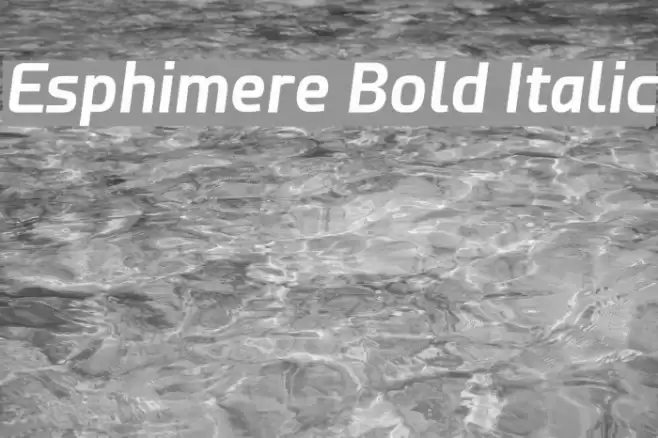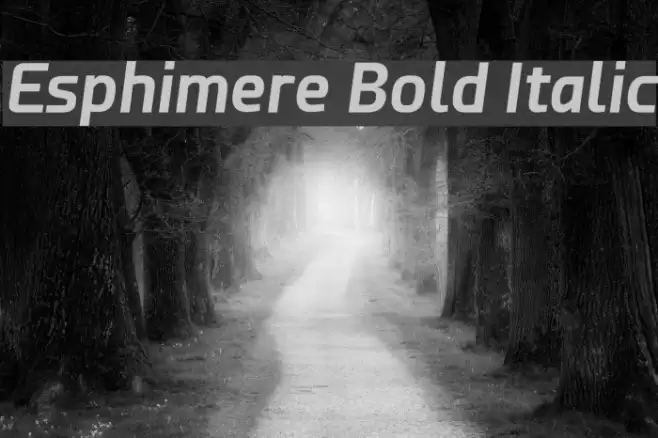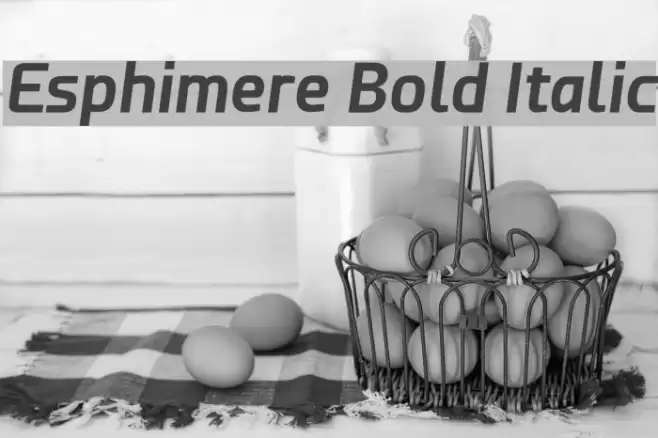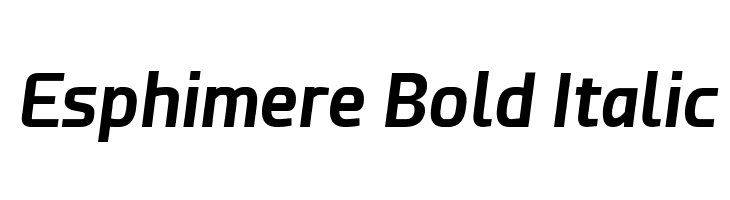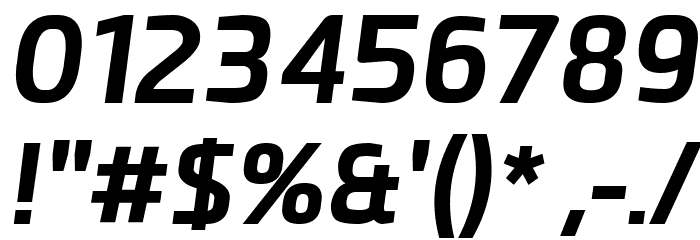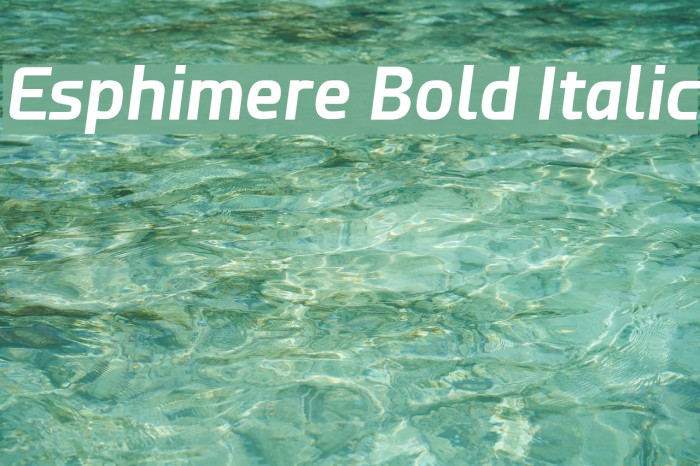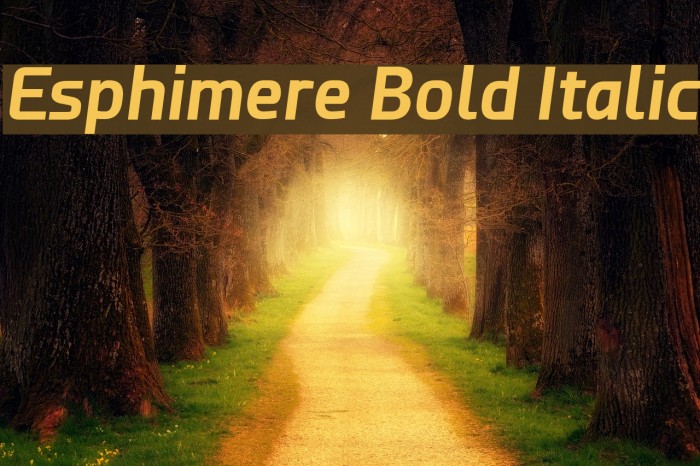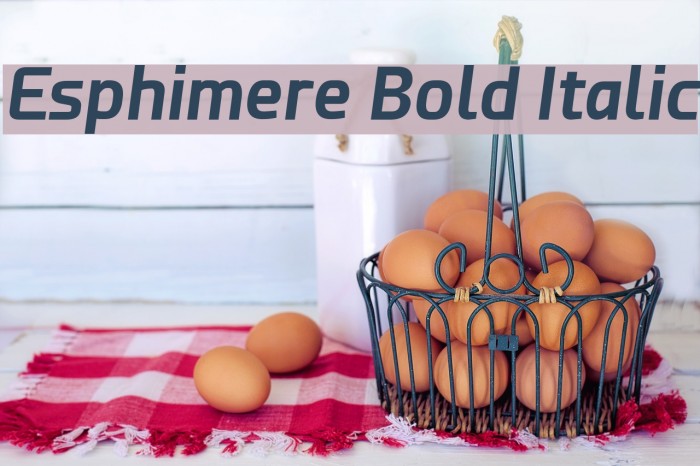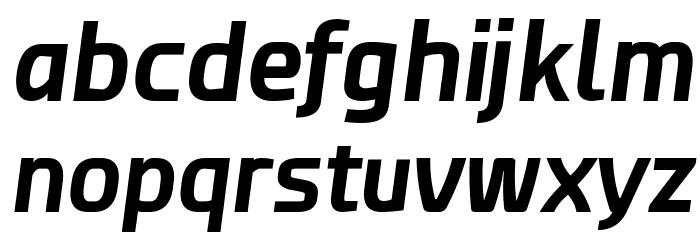
Esphimere Bold Italic
This font exhibits a modern and sleek design with a bold and italicized style. The characters are slightly slanted, giving a dynamic and forward-moving appearance. The strokes are consistent in thickness, providing a uniform look across all characters. The uppercase and lowercase letters are well-proportioned, ensuring readability and balance. The numerals are clear and distinct, matching the overall style of the alphabet. Special characters are included, maintaining the same bold and italic characteristics, making this font versatile for various uses.
A modern, bold italic font with consistent stroke thickness and dynamic slant.
- Proposed Projects: Ideal for branding, advertising, and editorial design where a modern and bold statement is needed.
- Use Case: Headlines, Logos, Branding